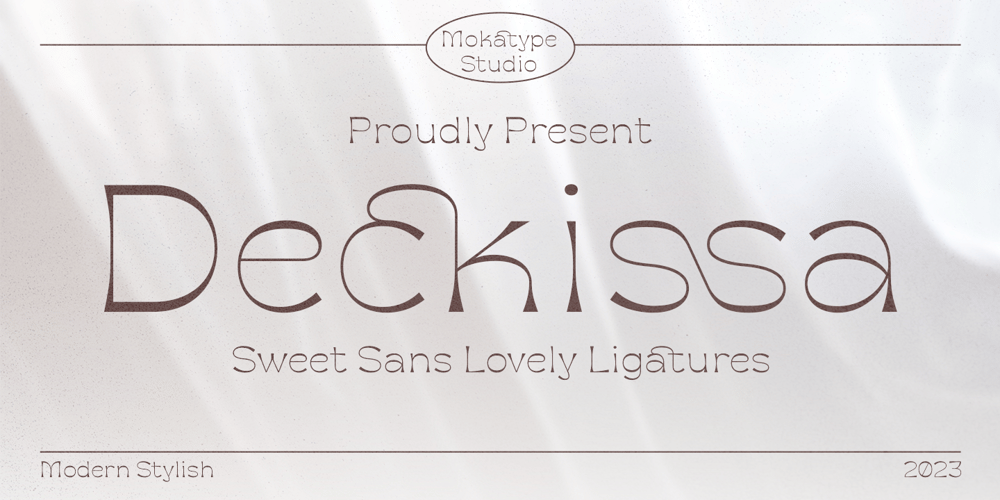
Deckissa Font Family was designed by Abdul Malik Wisnu, Rivo Adriansyah and published by Mokatype Studio. Deckissa contains 1 styles and family package options. Deckissa is a reverse contrast serif font that is suitable for headlines and logos. Deckissa is built with a light stem, simple design, and nice curve that makes this font look elegant and luxurious. This font includes some ligature that you can combine to create a Headline, poster, or logo.Works on PC & Mac, simple installations, accessible in Adobe Illustrator, Adobe Photoshop, Adobe InDesign, and even works on Microsoft Word. PUA Encoded Characters – Fully accessible without additional design software. Fonts include multilingual supportImage used: All photographs/pictures/vectors used in the preview are not included, they are intended for illustration only. Thank You